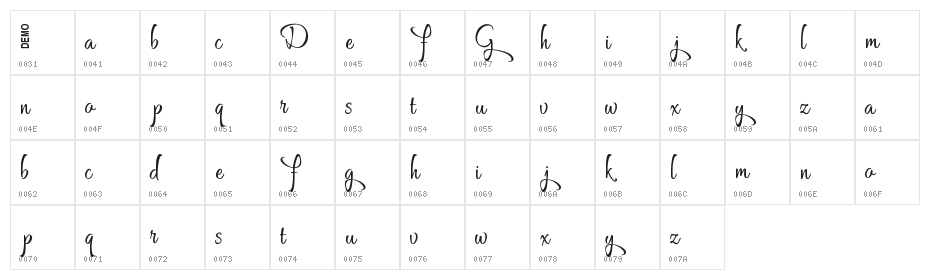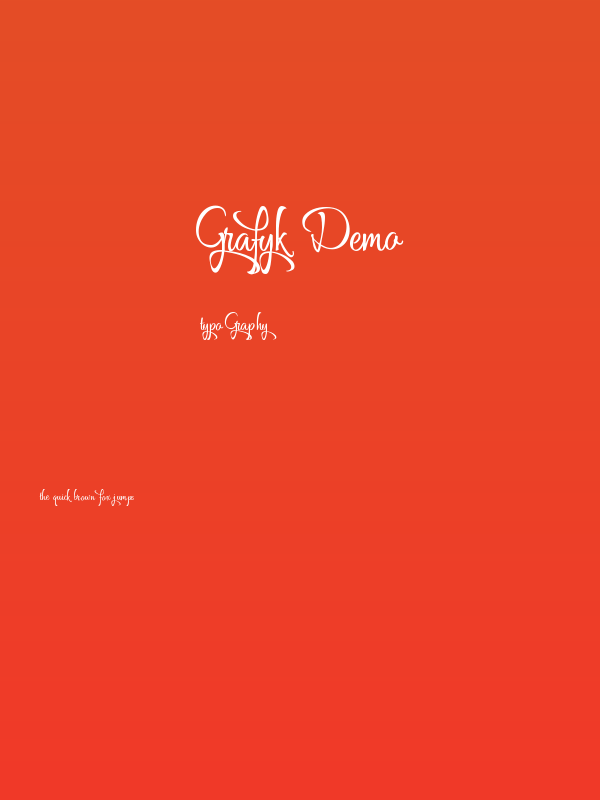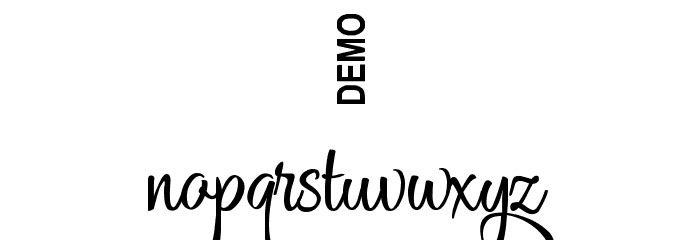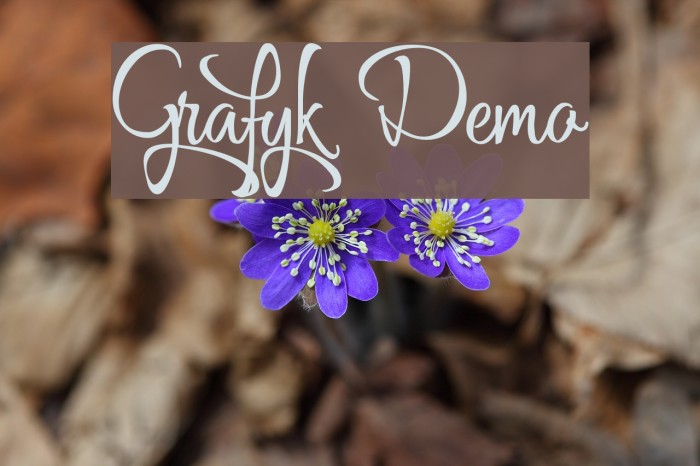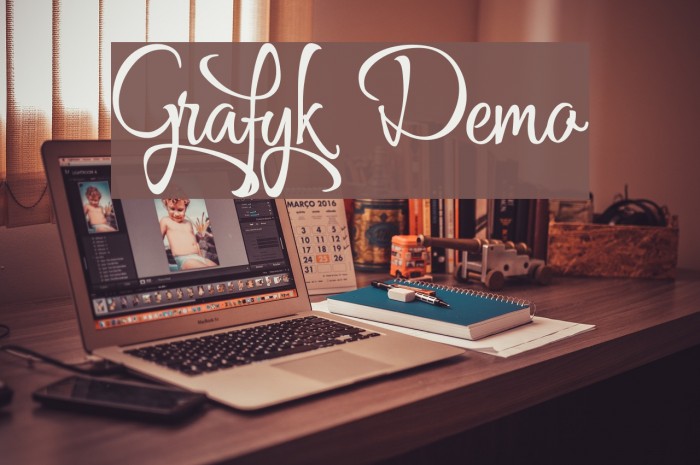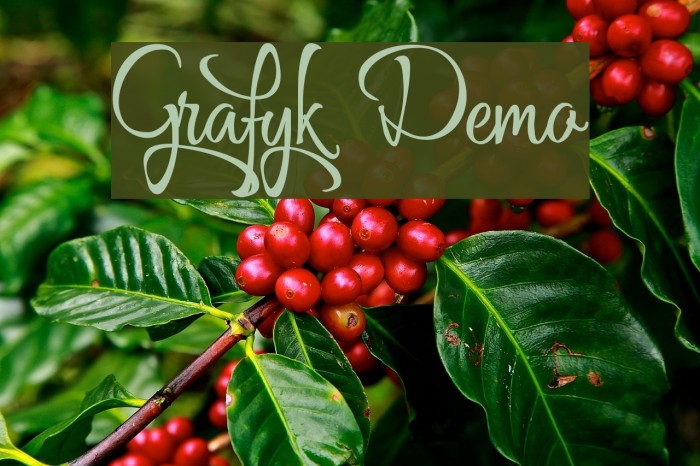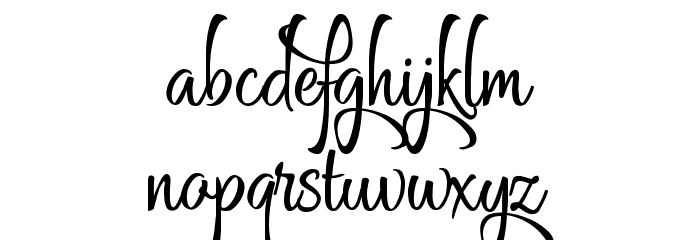
Grafyk Demo Font
This elegant script font features flowing, interconnected letters with a graceful and sophisticated appearance. The uppercase letters are ornate, with intricate loops and swashes that add a touch of flair. The lowercase letters maintain a consistent style, with smooth curves and a slightly slanted orientation. The font exudes a sense of elegance and formality, making it ideal for projects that require a touch of sophistication. The overall design is balanced, with each character crafted to complement the others, creating a harmonious and visually appealing typeface.
| Overall Style | Elegant, Sophisticated |
| Proposed Projects | Wedding invitations, luxury branding, elegant stationery, and formal event materials. |